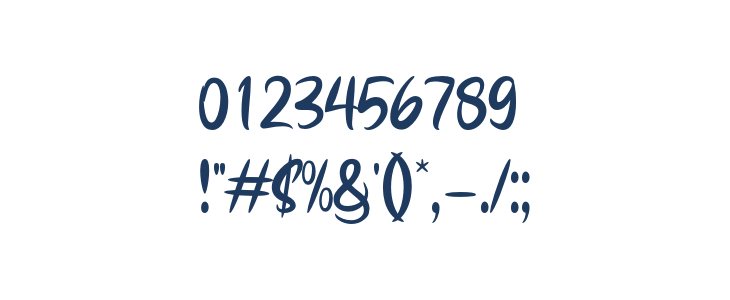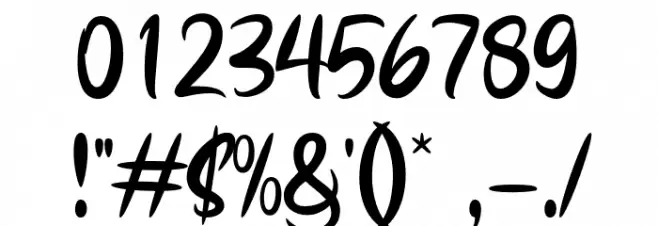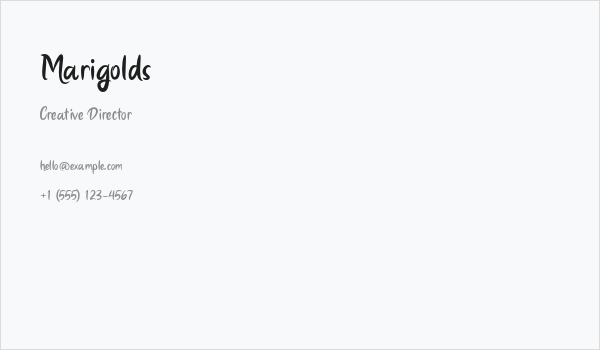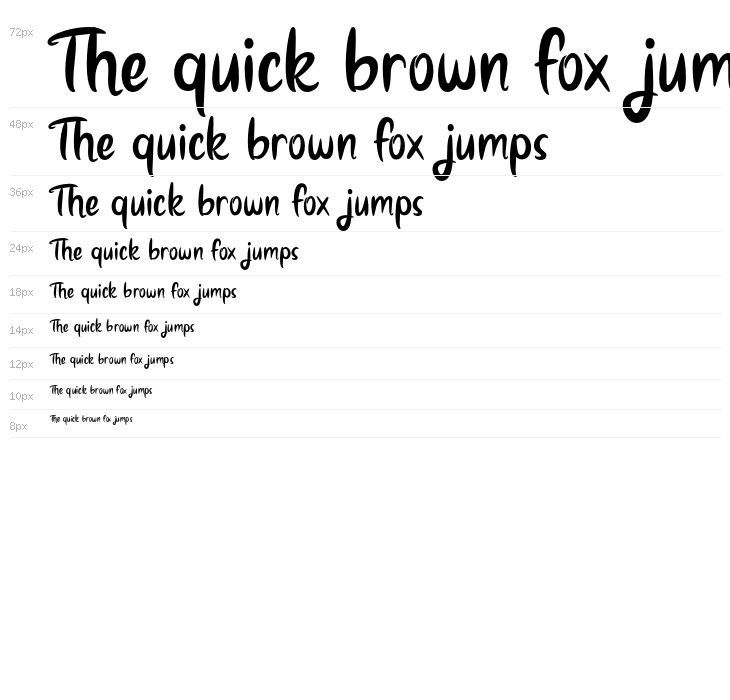
Marigolds Font
Marigolds Description
This font exhibits a lively and energetic script style with a handwritten feel. The letters are bold and slightly slanted, giving a sense of movement and fluidity. The uppercase characters are distinct with a playful flair, while the lowercase letters maintain a consistent flow. The numerals are well-integrated, matching the overall aesthetic with their rounded and dynamic forms. Special characters are creatively designed, adding to the font's whimsical nature. The strokes are thick, providing a strong presence on the page, and the overall appearance is both approachable and stylish.
| Proposed Projects | Ideal for greeting cards, invitations, branding, and social media graphics. |